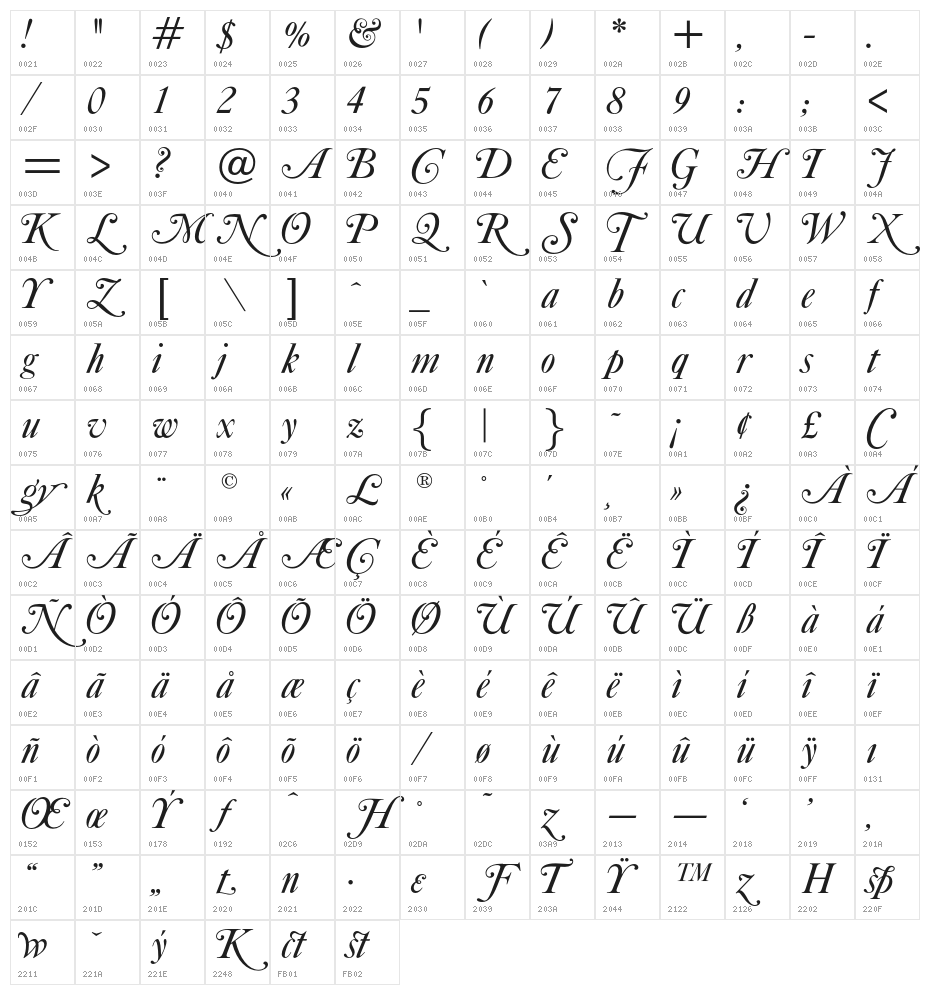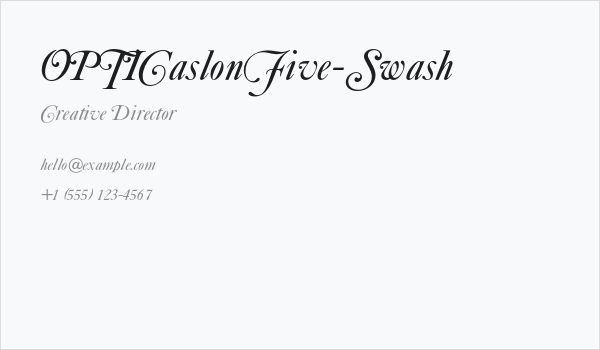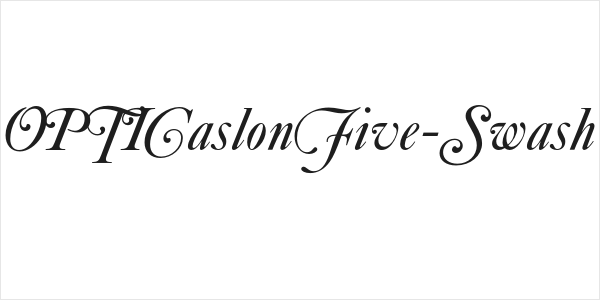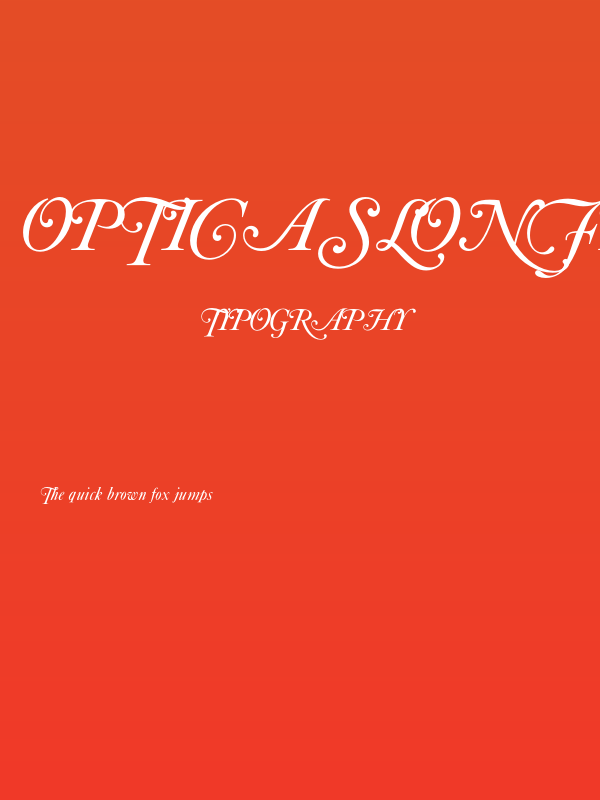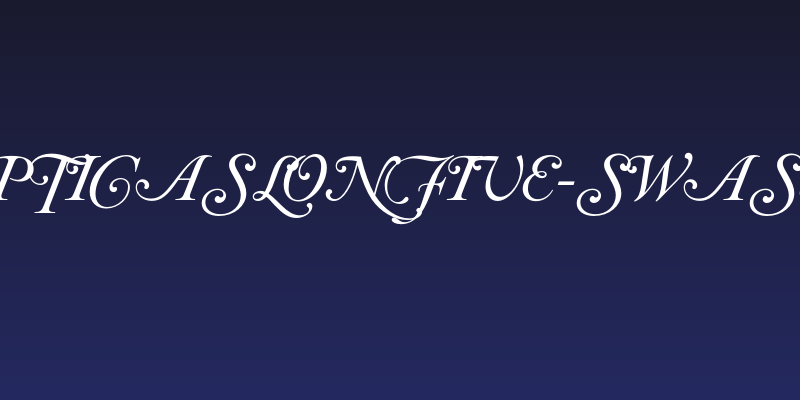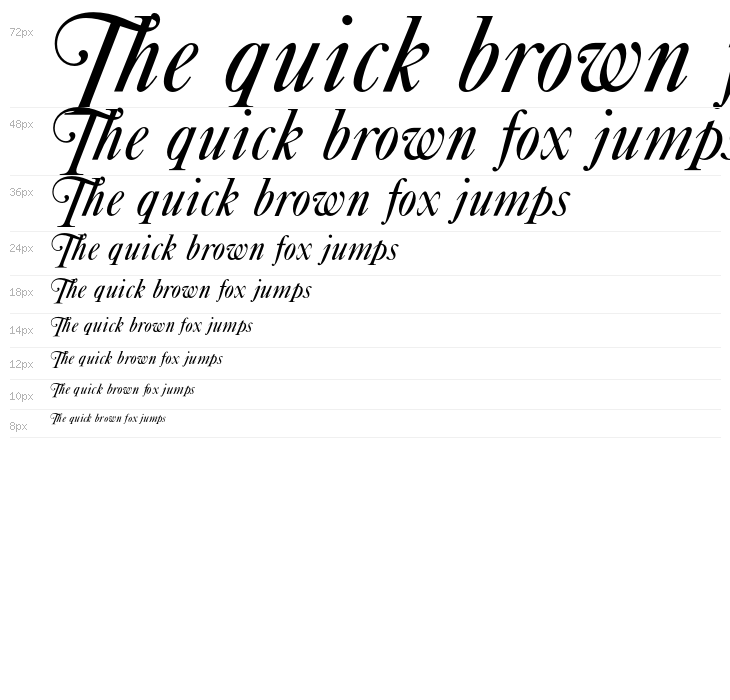
OPTICaslonFive-Swash Font
OPTICaslonFive-Swash Description
This elegant font features a sophisticated blend of classic and decorative elements, characterized by its swash-style serifs and flowing curves. The uppercase letters are adorned with intricate flourishes, adding a touch of grandeur and sophistication. The lowercase letters maintain a more traditional serif appearance, yet they still possess a subtle elegance. The numerals are clear and well-defined, ensuring readability while maintaining the overall aesthetic. Special characters are thoughtfully designed, complementing the font's ornate style. This font is perfect for projects that require a touch of class and elegance.
| Overall Style | Classic, Decorative |
| Proposed Projects | Ideal for wedding invitations, luxury branding, high-end product packaging, and editorial design. |